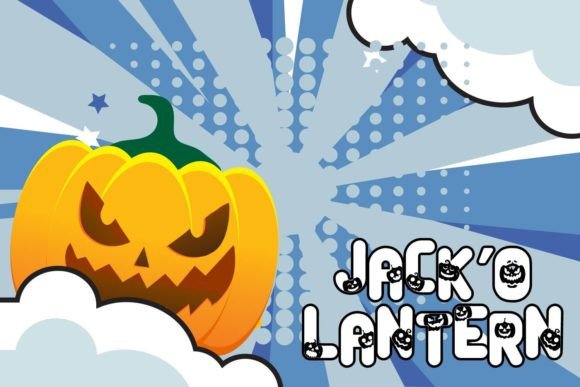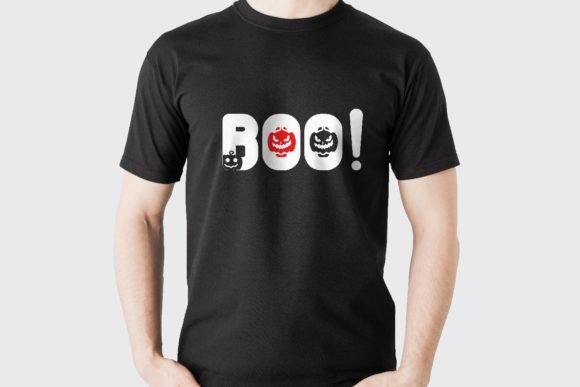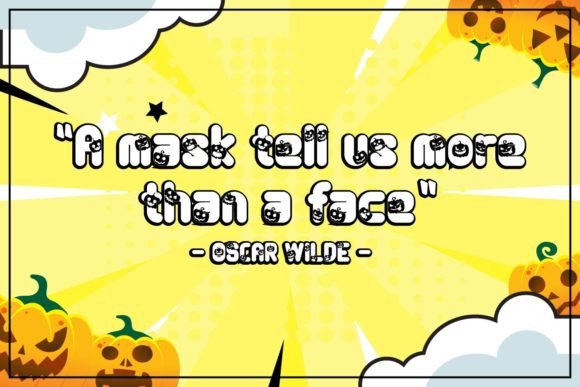
The Perfect Font for Your Spooky Projects: Jack O Latern Font
Have you ever been working on a design project, and just as you’re about to hit publish, you realize that something is missing – that certain je ne sais quoi that takes your design from good to great? That’s exactly what happens when you pair your creative idea with the perfect font. For designers looking to add a touch of whimsy and fun to their projects, the Jack O Latern Font is a game-changer.
This delightful display font has a scary-cute horror theme that’s sure to captivate your audience. With its playful and masterfully designed letters, the Jack O Latern Font has the potential to elevate each of your creative ideas to new heights. Whether you’re working on a spooky Halloween project or a fun kids’ book, this font is sure to be a true favorite among designers.
Key Features of Jack O Lantern Font
- Unique Characteristics: Distinctive, hand-carved pumpkin-inspired design with intricate details and textures
Designer Review: Jack O Lantern Font
Overall, I found the Jack O Lantern font to be a delightfully spooky addition to any Halloween-themed project. The playful, hand-drawn feel of the font is perfect for capturing the whimsy and magic of the season. ✨
The font features a range of characters, including uppercase and lowercase letters, numbers, and punctuation. The designer has also included some fun, Halloween-themed icons and symbols, which add an extra layer of personality to the font. ✨
While the Jack O Lantern font is a great addition to any Halloween-themed project, it does have some limitations. ⚠️
- ⚠️ The font may be too playful for more serious or formal projects.
- ⚠️ Some characters, such as the uppercase ‘Q’ and ‘R’, may be difficult to read in certain contexts.
Overall, I would recommend the Jack O Lantern font for anyone looking to add a touch of Halloween magic to their project. While it has some limitations, the font’s playful feel and range of characters make it a great choice for the right project. ✨
Use the Jack O Lantern font to add a spooky or festive touch to your designs.
Combine it with other Halloween-themed graphics and elements for a cohesive look.
Halloween party invitations
Spooky social media posts
Haunted house or haunted attraction marketing materials
Playfair Display is an elegant, high-end serif font ideal for creating luxurious and sophisticated designs. It is perfect for use in magazines, advertising, and high-end branding.
Compared to Jack O Lantern Font, Playfair Display is more refined and less playful. It is better suited for formal and elegant designs, whereas Jack O Lantern Font is more suitable for playful and whimsical designs.
Compared to Jack O Lantern Font, Courier Prime is more straightforward and lacks the playful feel of Jack O Lantern Font. It is better suited for projects that require a clean and technical look.
Compared to Jack O Lantern Font, Amarante is more refined and less playful. It is better suited for formal and elegant designs, whereas Jack O Lantern Font is more suitable for playful and whimsical designs.